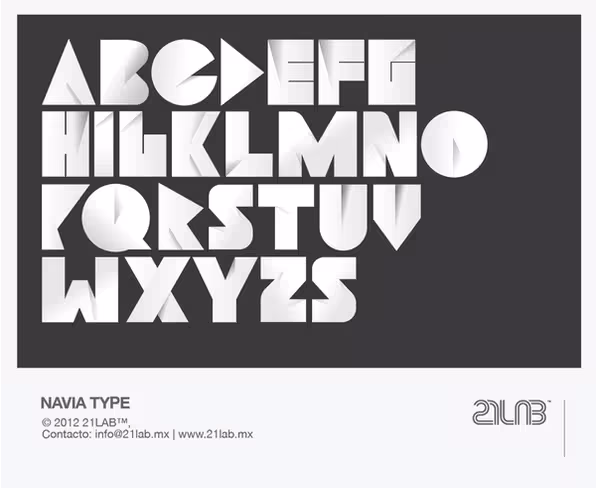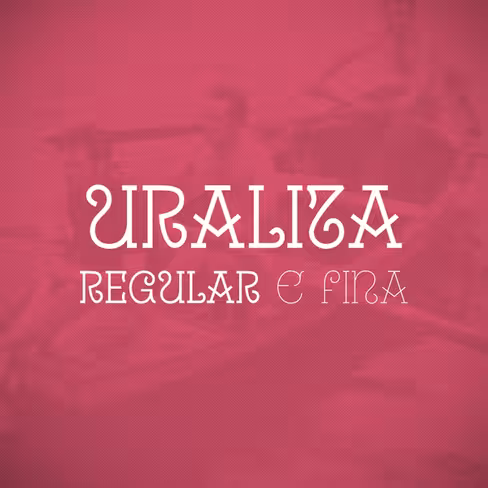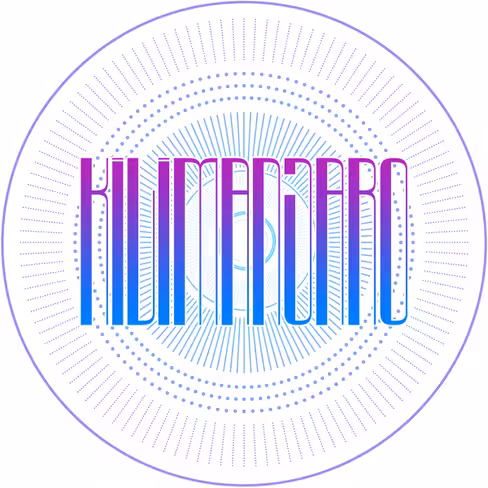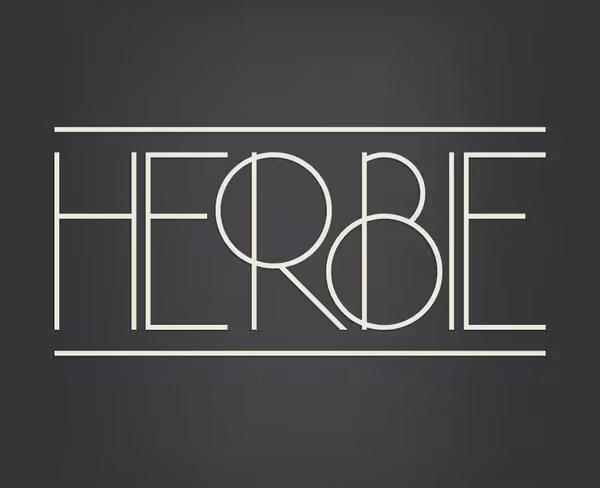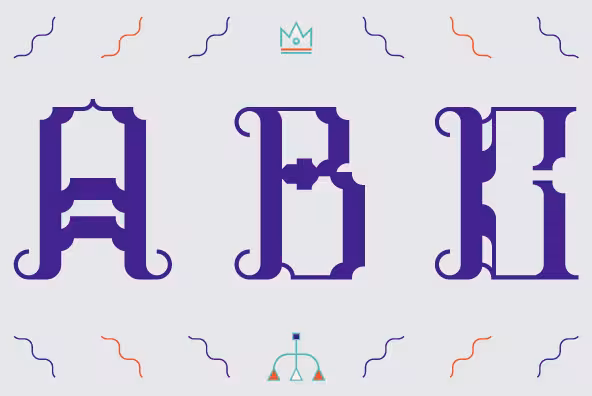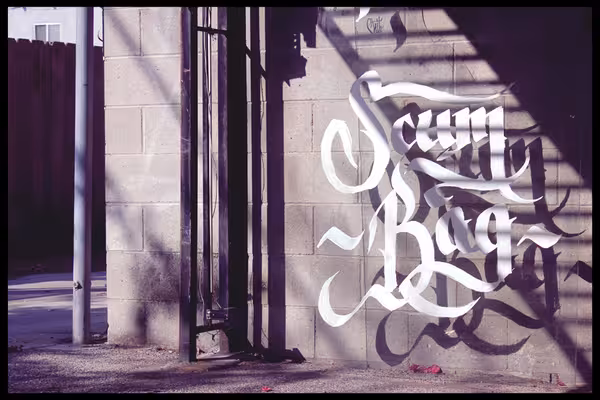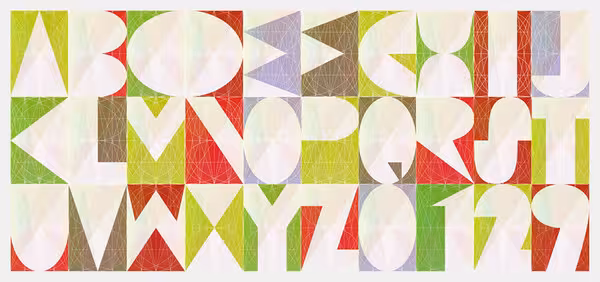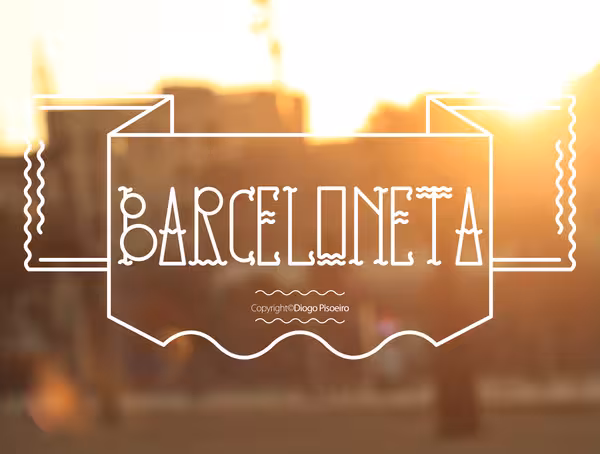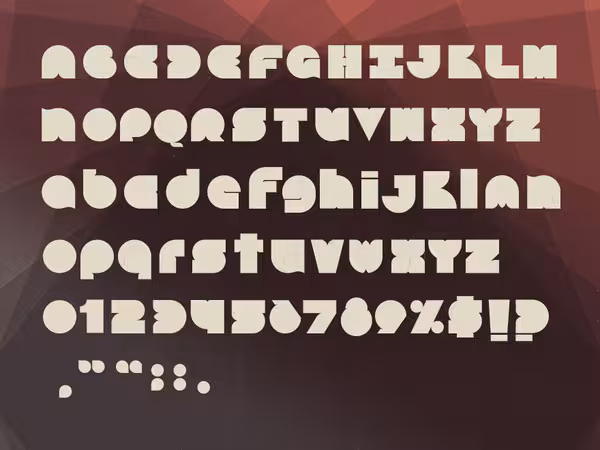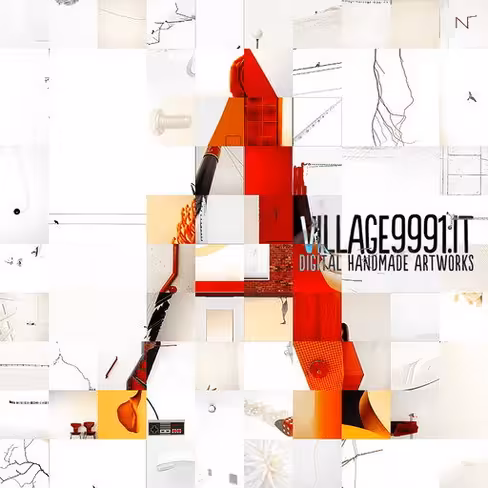
Nearly every designer out there has a strong love for typography. Of course, many of us will never become full-fledged type designers, or even dedicated typographers, but somehow we all still manage to lust for the details of gorgeous type treatments, display and text typefaces.
And out of every genre hidden in the depths of typography, from black letter to grotesque, I have the softest of soft spots for experimental typefaces. They push boundaries, and that’s exactly what keeps this industry alive and well.
And so in that spirit, we’re back with a list of 21 new experimental faces, since gathering 9 in June and 5 particularly wild typefaces in February.
2. Lullaby Font:
4. Bodoni in red:
5. Gothic Sugar:
6. Kilimanjaro:
7. Centennial of the Portuguese Republic:
8. YWFT ROLAND:
10. Barceloneta typeface:
11. Navia Type (free):
12. Floating Calligraphy:
13. Uralita Font:
14. Living Typography:
15. Herbie:
16. Fatalism (free):
17. Kandinsky Type:
18. Architecture Posters:
19. Bonez Font:
20. Typeforce 3:
21. Go Font Design: